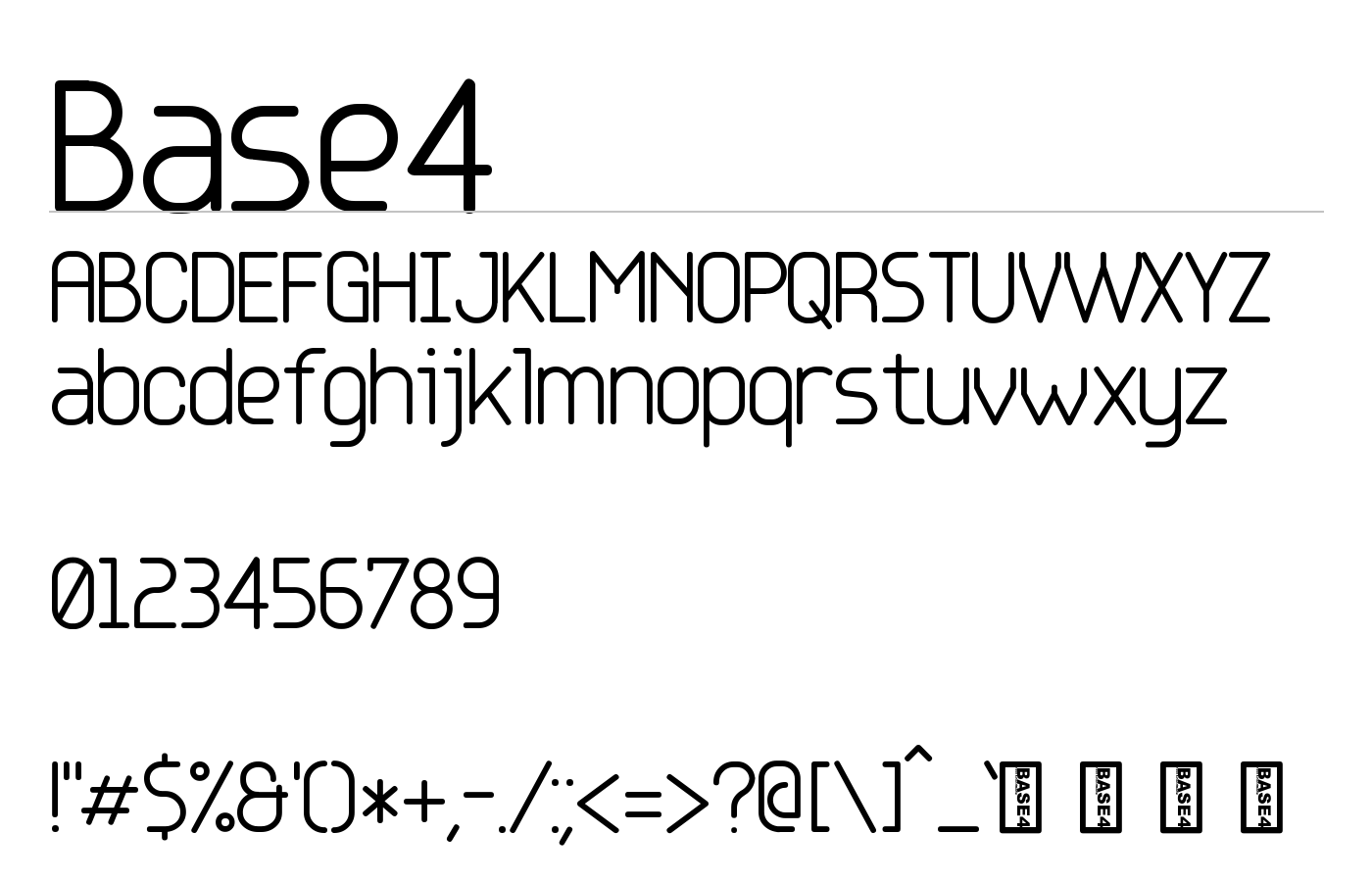
Base4 is a sleek, modern sans serif font characterized by its thin strokes and narrow letterforms, giving it a clean and minimalist appearance. Its rounded edges and slightly condensed width create a futuristic and technical feel, making it well-suited for contemporary branding, technology-focused designs, and stylish editorial headings. This font works best in digital environments where clarity and a modern aesthetic are key, especially for logos, websites, and display text.
Base4 Font